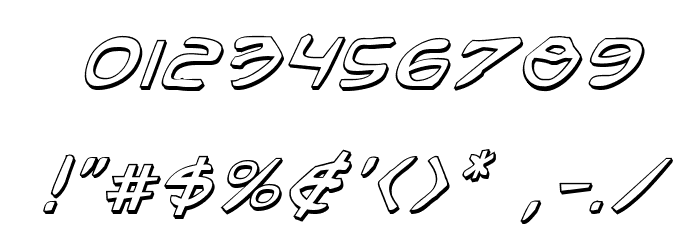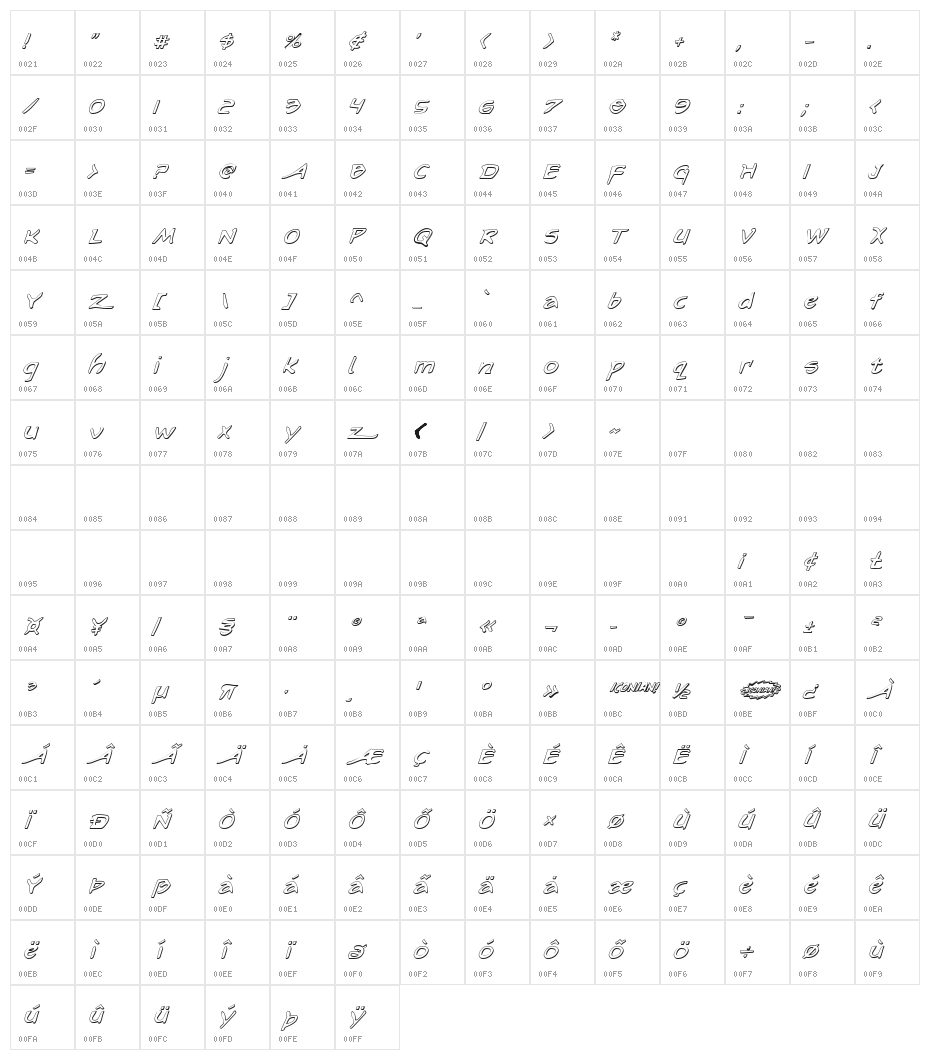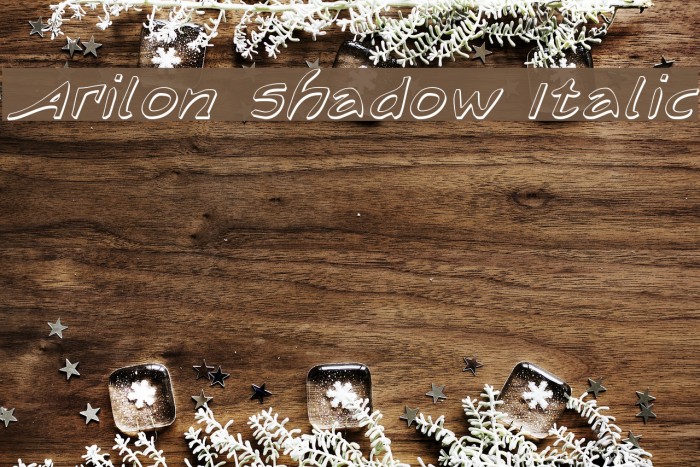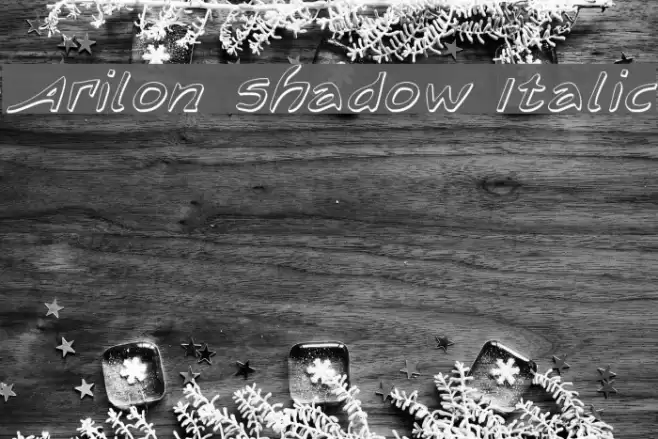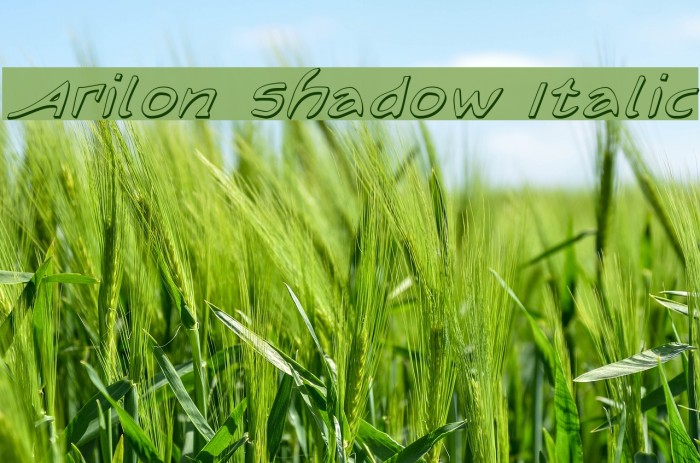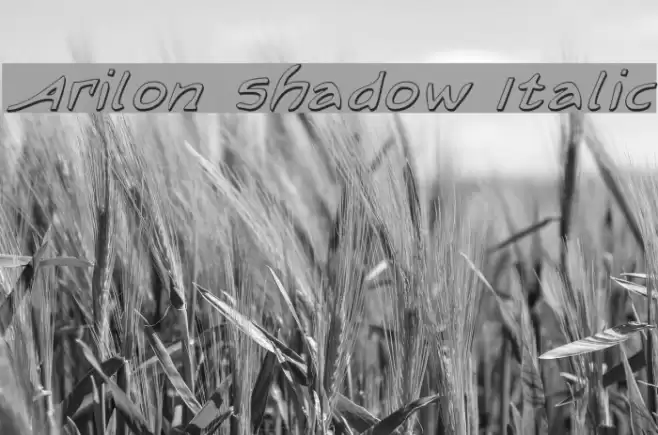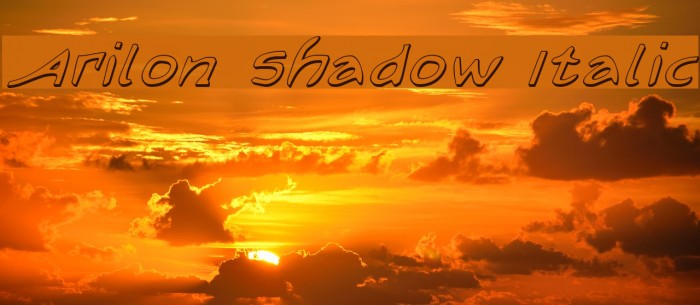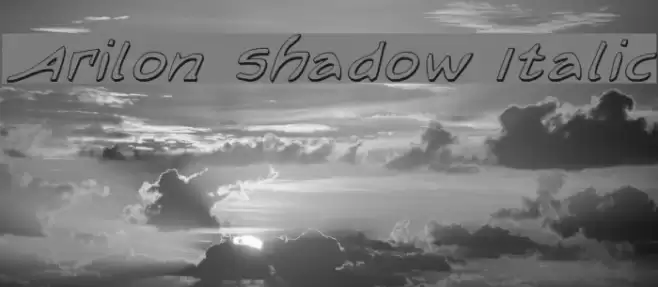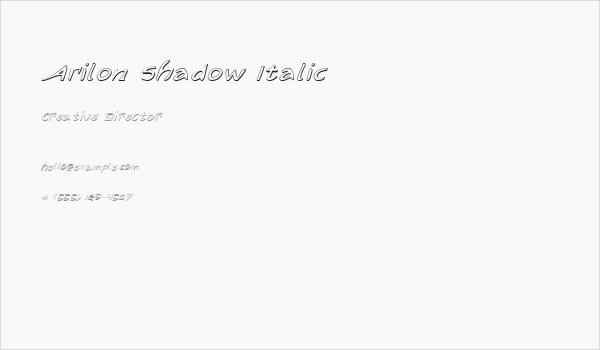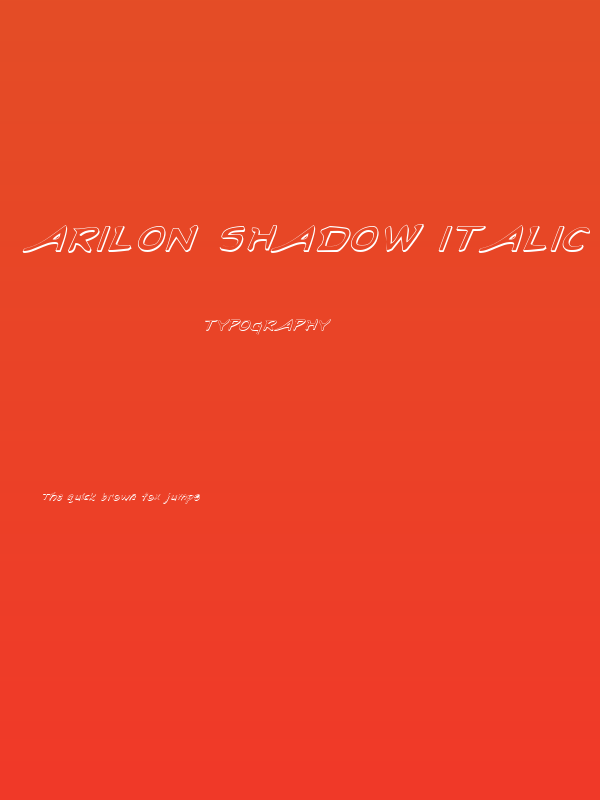
Arilon Shadow Italic Font
Arilon Shadow Italic Description
This font features a dynamic and playful design with a shadow effect that adds depth and dimension to each character. The italicized style gives it a sense of motion and fluidity, making it stand out in any design. The uppercase and lowercase letters maintain a consistent style, with smooth curves and sharp angles that create a modern and edgy look. The numerals and special characters are designed to match the overall aesthetic, ensuring a cohesive appearance across all text elements. This font is ideal for projects that require a bold and eye-catching typeface.
Proposed ProjectsIdeal for branding, posters, headlines, and any design needing a bold, modern touch.